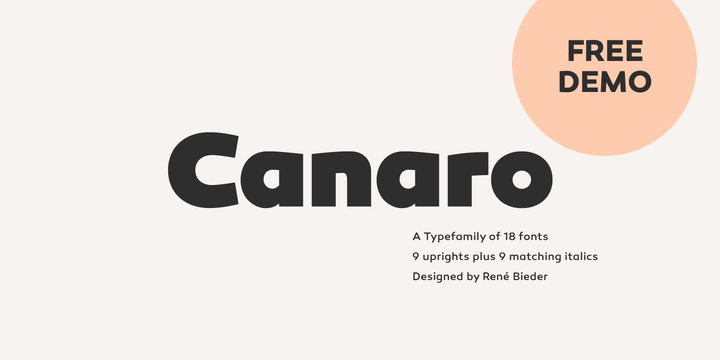
Canaro Free Demo
Conceived as an exploration of geometrical typedesigns of the early 20th century, Canaro developed into a font of that period with a modern streak. The lack of spurs provide a unique but unobtrusive appearance and support the contemporary character. In addition, the open shapes in combination with a tall x-height, create legibility in small text sizes.